Greek Font Generator
This generator swaps Latin letters for visually similar Greek characters, the same look used for fraternity/sorority-style lettering and stylized usernames, rather than translating your text into actual Greek.
Greek Fusion Italic gives the lightest, most legible mix; Greek Fusion Bold is heavier for a bigger, more graphic look.
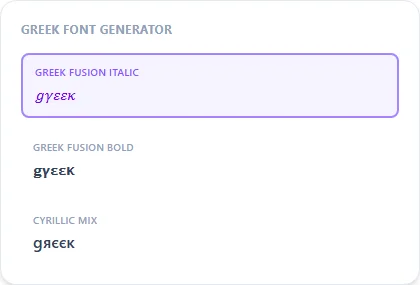
Lookalike letters, not a translation
This generator maps each Latin letter to a Greek character that looks similar — for example a Latin 'A' to a Greek Alpha — purely for visual effect. It does not translate your words into the Greek language, and reading the result aloud as Greek won't produce meaningful words. It's the same visual-substitution technique used for fraternity and sorority-style letter designs.
Fraternity, sorority, and stylized username uses
Greek Fusion styles are popular for previewing how initials or a short word would look in a Greek-letter-inspired design before committing to an actual printed or embroidered version. For that final product, hand the concept to a designer rather than using the generated text directly, since Unicode characters aren't vector artwork.
Does this translate my text into Greek?
No — it substitutes Latin letters with visually similar Greek (and a few other) characters. It reads as Greek-style lettering, not an actual Greek translation.
Is this good for fraternity or sorority letter designs?
It's a fast text-only preview of that look; for an actual printed or embroidered design you'd still want a real graphic designer or font file, since these are decorative Unicode substitutions, not vector letterforms.
What's the difference between Greek Fusion Bold and Italic?
Bold is heavier and more graphic, better for a big display look; Italic is lighter and slanted, reading more like handwritten Greek-style lettering.
Can I mix Greek-style letters with a regular Latin alphabet in the same word?
The generator applies one style consistently across your whole input; for a hand-picked mix of specific letters you'd need to copy pieces from different styles and combine them yourself.